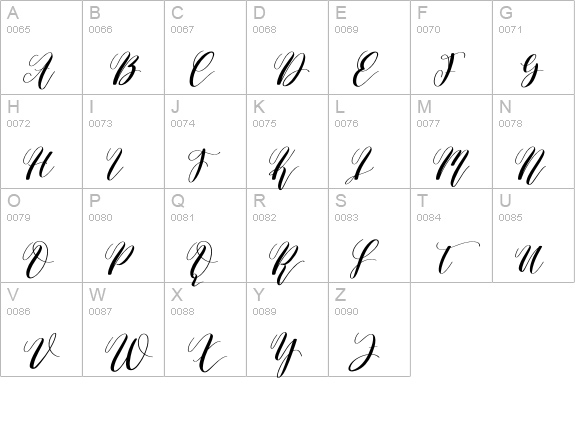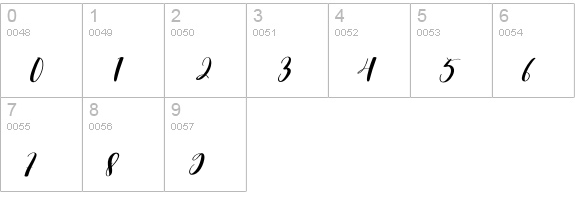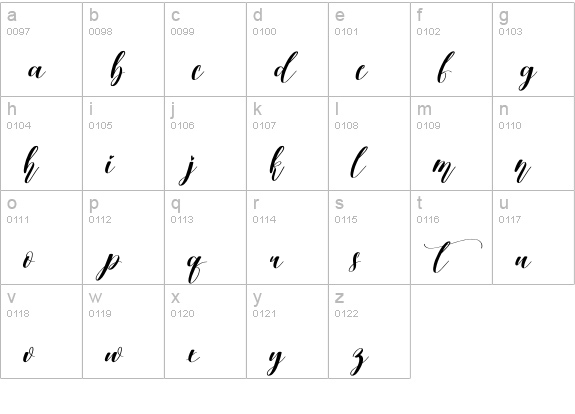
Vanillamilk Font Details
Vanillamilk is a free for personal use font in the Script > Handwritten category, designed by scratchones. It has been downloaded 4 times and is available for Windows, Mac and Linux.
Introducing Vanillamilk font - a delightful and charming typeface that exudes elegance and sophistication. With its smooth curves and elegant lines, Vanillamilk font is perfect for adding a touch of class to any design project. This versatile font is ideal for a wide range of applications, from branding and packaging to invitations and social media graphics.
What sets Vanillamilk font apart is its unique blend of modernity and timeless appeal. Whether you're designing a wedding invitation or creating a logo for your business, Vanillamilk font will help you make a lasting impression.